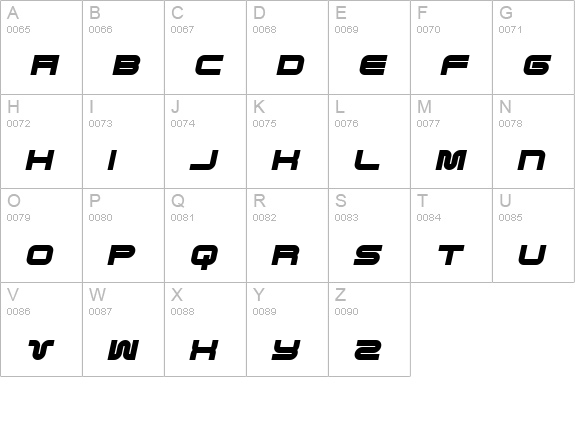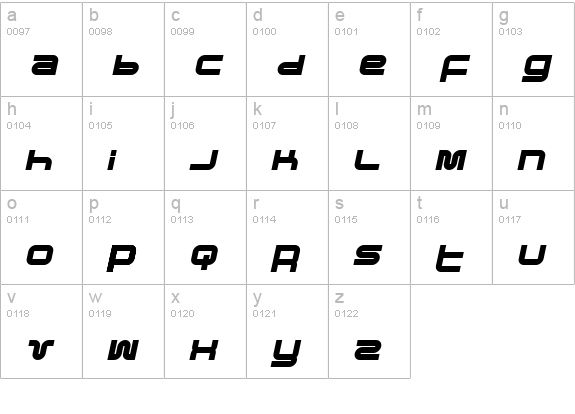
Pfuk BoldItalic Font Details
Introducing Pfuk BoldItalic, a bold and daring font that exudes confidence and adds a touch of flair to any design project. With its unique blend of boldness and italics, this font stands out from the crowd, making a powerful statement in both print and digital mediums. Pfuk BoldItalic is the perfect choice for those seeking a font that captures attention and leaves a lasting impression. Its thick and robust strokes command attention, while the subtle italic slant adds a touch of elegance and sophistication. Whether used for headlines, logos, or promotional materials, this font is sure to make a bold statement that resonates with viewers. But what sets Pfuk BoldItalic apart from the rest is that it is not only visually striking but also freely available for download. Thanks to its generous creators, this font can be easily accessed and utilized by designers, creatives, and enthusiasts alike. No need to worry about breaking the bank or navigating complicated licensing agreements – simply head over to FontsMarket.com, and discover the freedom of downloading Pfuk BoldItalic to enhance your creative endeavors. The versatility of Pfuk BoldItalic knows no bounds. Its highly legible design ensures clear communication, whether used in small or large sizes. The carefully crafted letterforms maintain their distinctiveness, even when scaled down, making it an ideal choice for various design applications. Pair it with other fonts or use it on its own – the possibilities are endless, limited only by your imagination. Pfuk BoldItalic brings a sense of boldness and adventure to any design project, be it advertising campaigns, branding materials, or social media graphics. Its unique character and captivating presence will captivate and engage your audience, leaving a lasting impression that sets your work apart. Don't miss out on the opportunity to unleash the power of Pfuk BoldItalic in your creative projects. Download it now, free of charge, at FontsMarket.com, and let this exceptional font elevate your designs to new heights of visual excellence. Embrace the freedom of creativity and make a statement with Pfuk BoldItalic - the font that dares to be different.